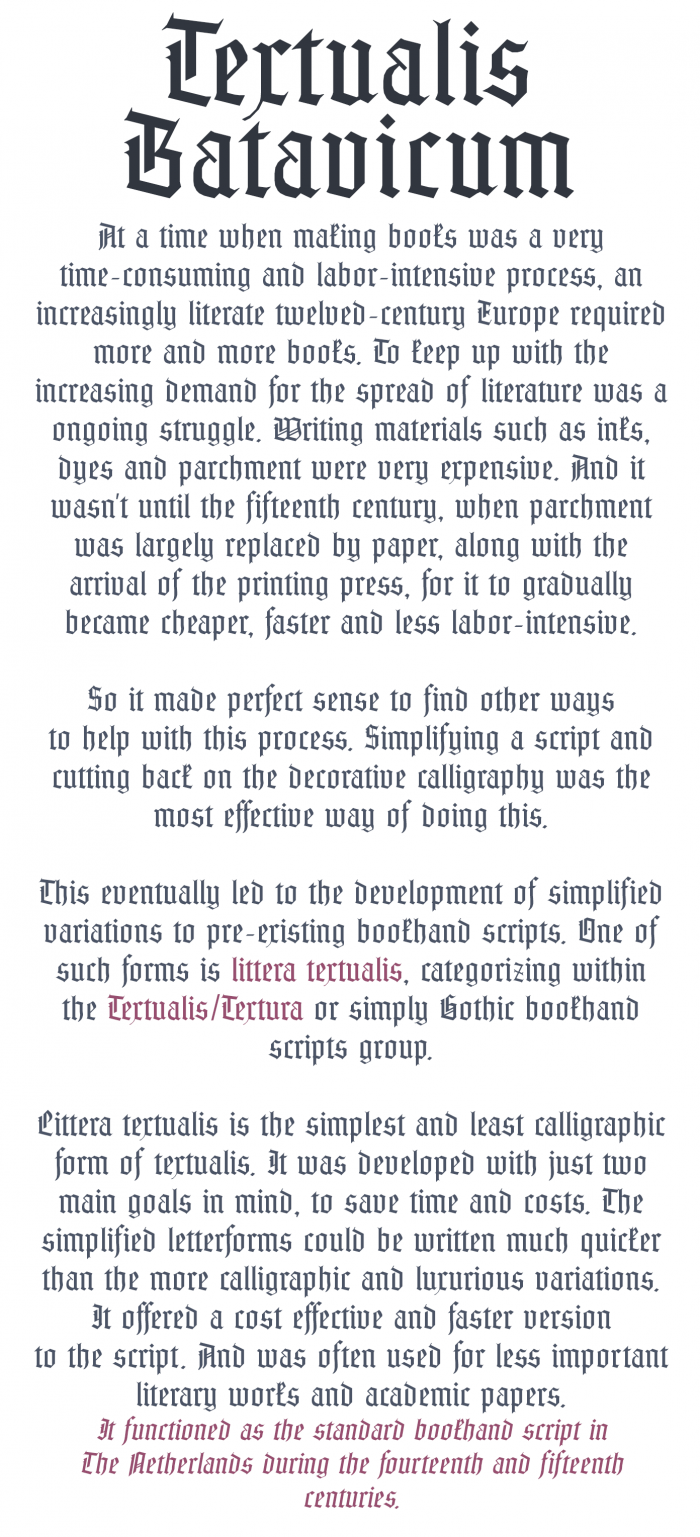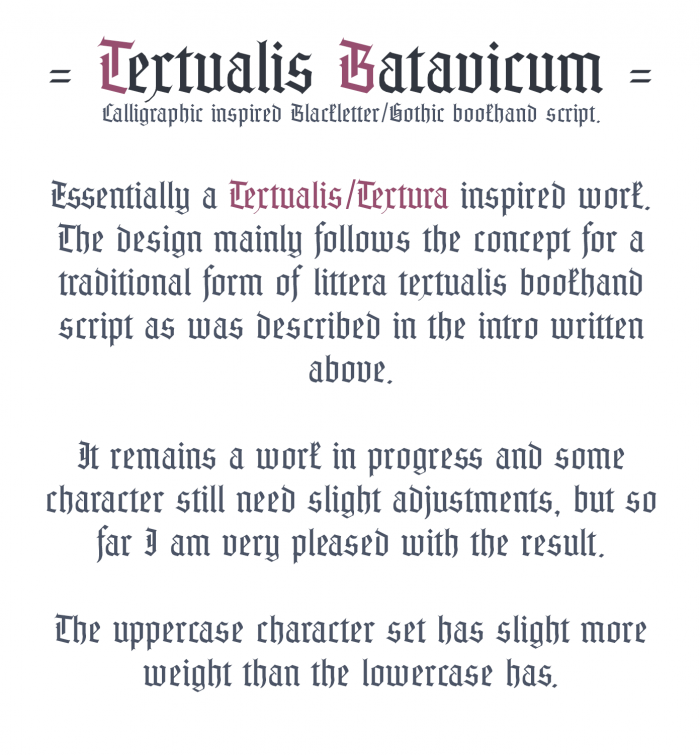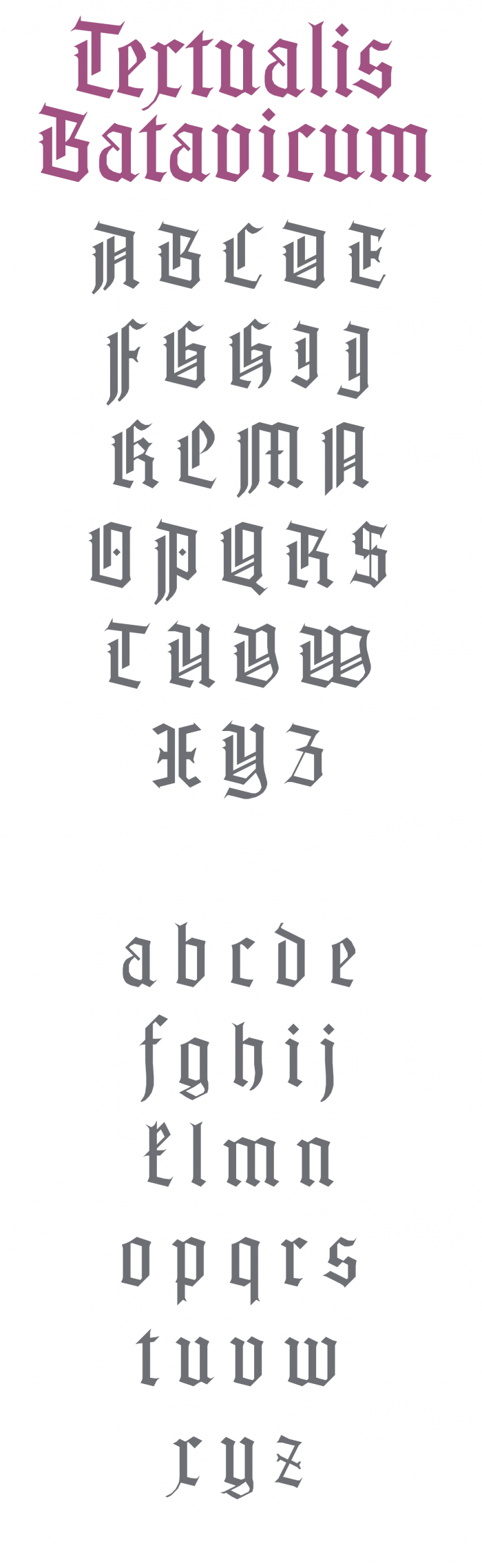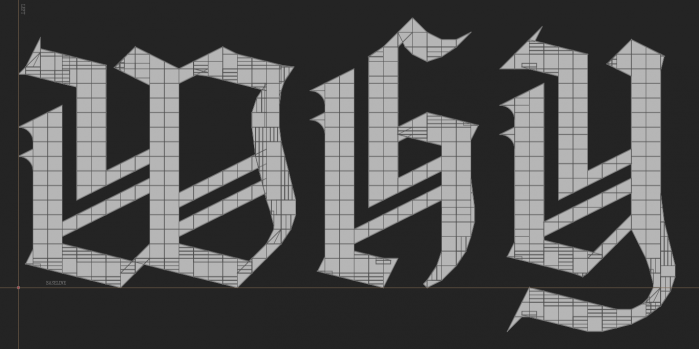
• ====[ EDUCATIVE INTRO ]====
At a time when making books was a very time-consuming and labor-intensive process, an increasingly literate 12th-century Europe required more and more books. To keep up with the increasing demand for the spread of literature was a ongoing struggle. Writing materials such as inks, dyes and parchment were very expensive. And it wasn't until the 15th century, when parchment was largely replaced by paper, along with the arrival of the printing press, for it to gradually became cheaper, faster and less labor-intensive.
So it made perfect sense to find other ways to help with this process.
Simplifying a script and cutting back on the decorative calligraphy was the most effective way of doing this.
This led to the development of simplified variations to pre-existing bookhand scripts. One of such forms is littera textualis, categorizing within the Textualis/Textura or simply Gothic bookhand scripts group.
Littera textualis is the simplest and least calligraphic form of textualis. It was developed with just two main goals in mind, to save time and costs. The simplified letterforms could be written much quicker than the more calligraphic and luxurious variations. It offered a more cost effective and faster version to the script. It was often used for less important literary works and academic papers.
It functioned as the standard bookhand script in the Netherlands during the 14th & 15th centuries.
====[ ABOUT THIS FONT ]====
TEXTUALIS BATAVICUM - A calligraphic inspired Blackletter/Gothic bookhand script. Essentially a Textualis/Textura inspired work.
The design mainly follows the concept for a traditional form of littera textualis bookhand script as was described in the intro written above.
It remains a work in progress and I will add update info for this font in the comment section bellow.
Some character still need slight adjustments, but so far I am very pleased with the result. As you can probably notice, the uppercase characters have slight more weight than the lowercase has.
More characters follow soon.
I think you mat have to revisit N, but this really is awesome.